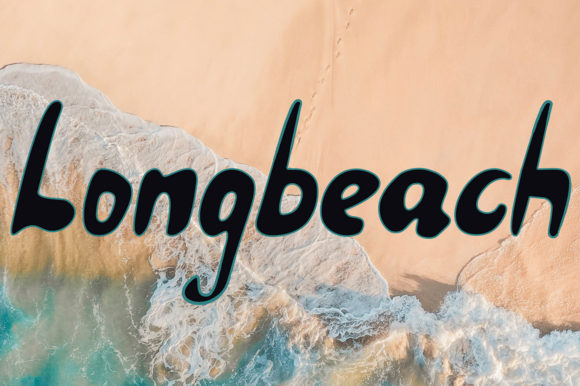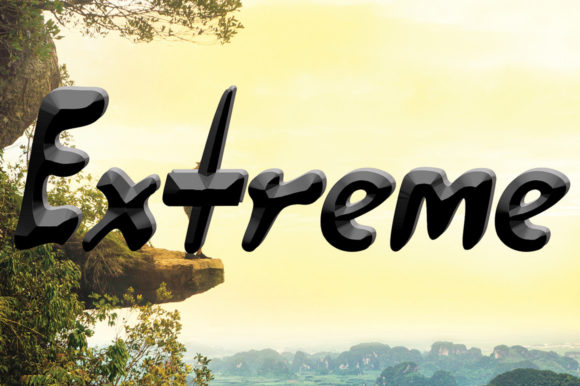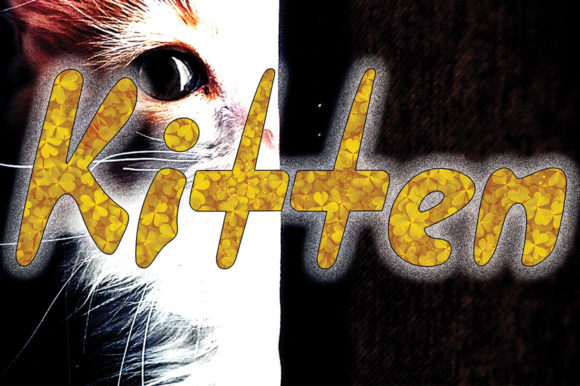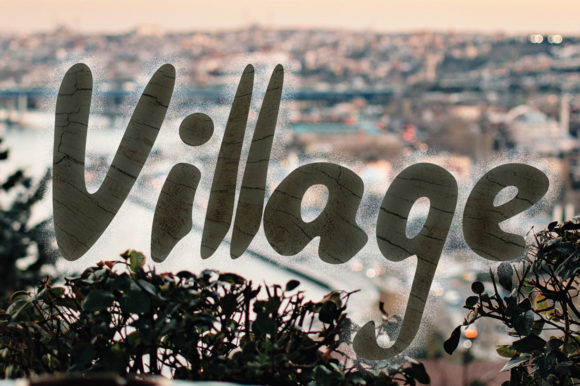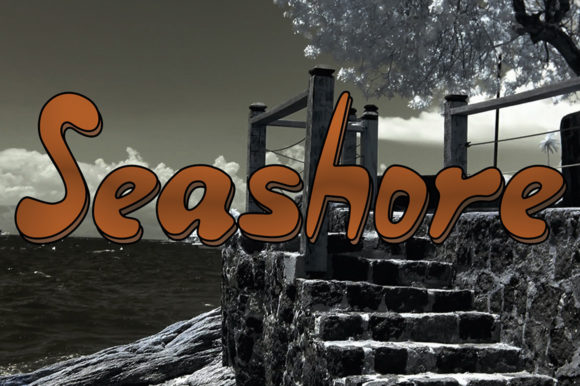
Introduction to Faza Ali Font
Faza Ali is a playful and modern script font.
It is perfectly suited for traditional media and web Faza Ali’s trendiness makes it great for creative projects, such as branding, banners, events, flyers and more.